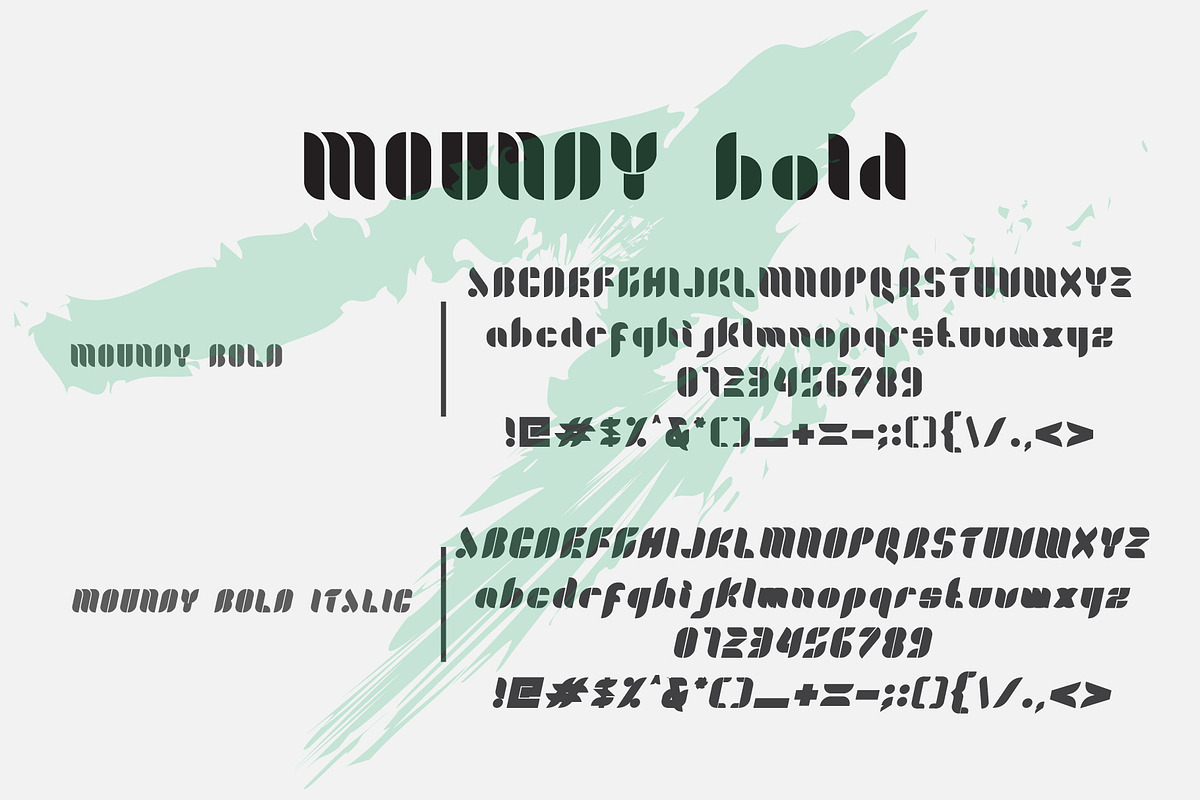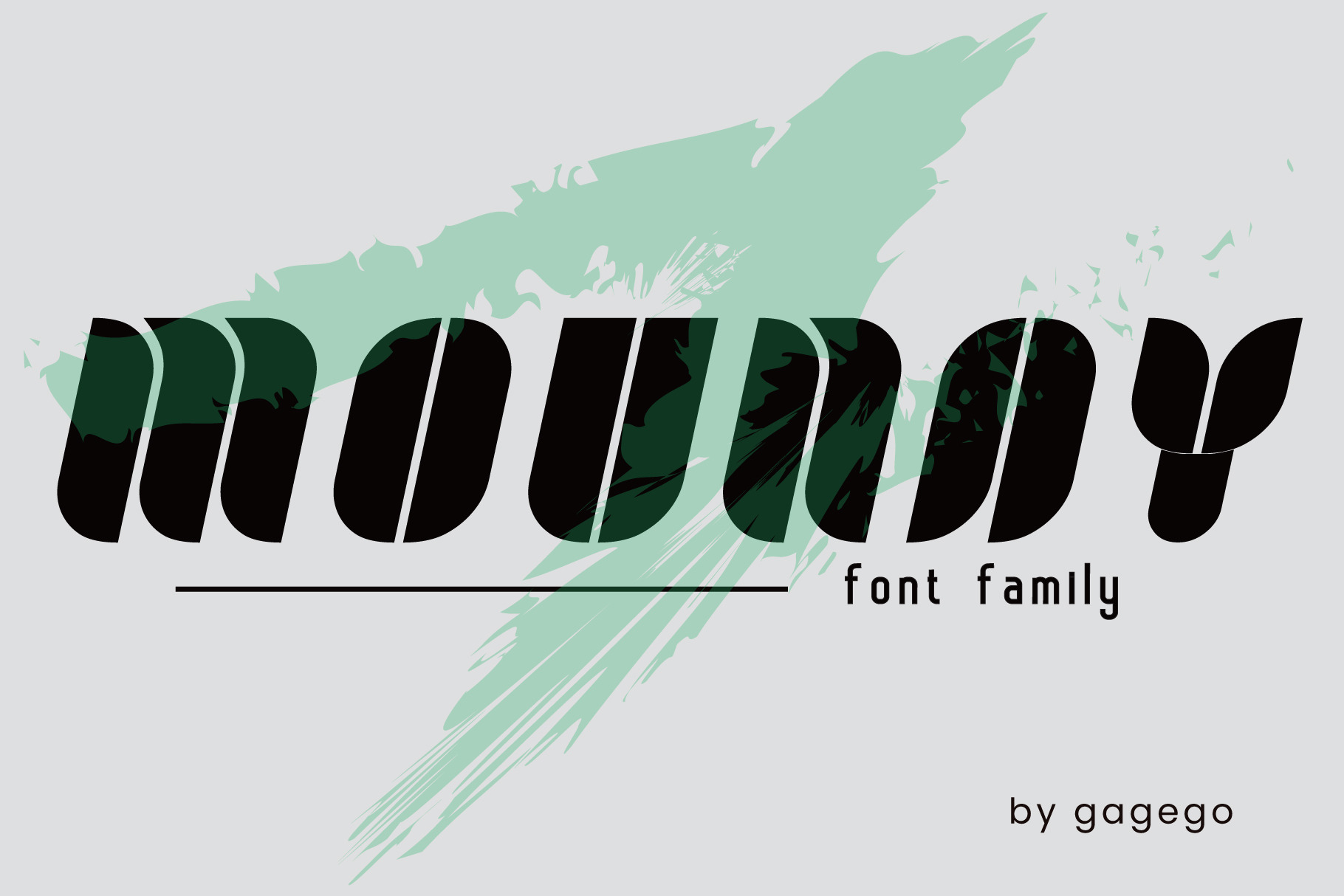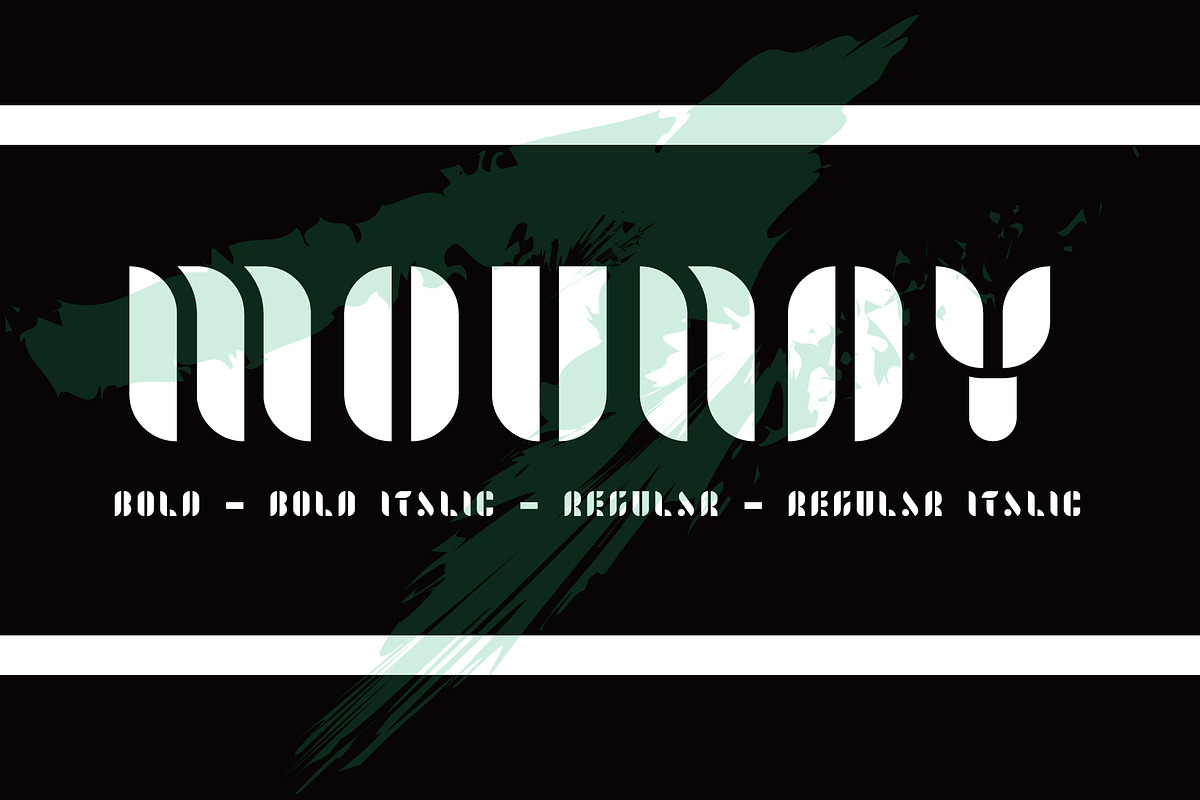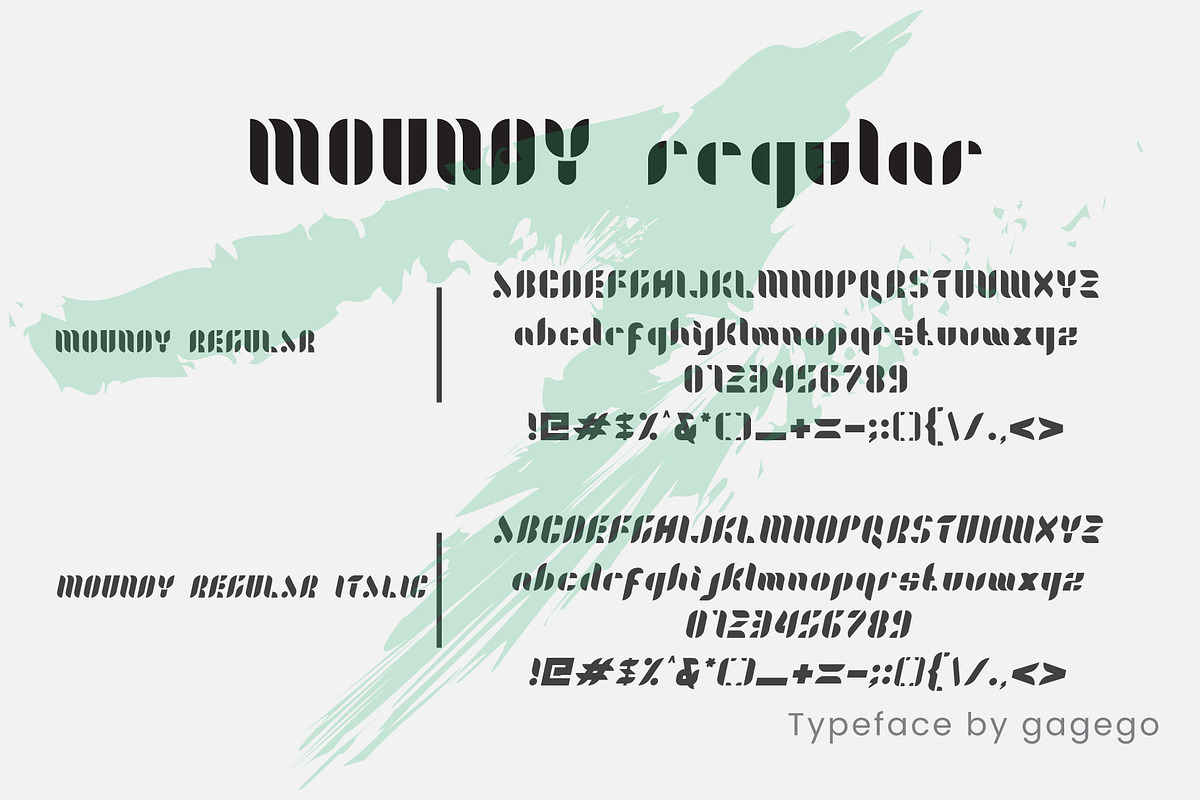
Moundy font
We provide a unique but interesting font that name is MOUNDY FONT. This font only provides uppercase letters, does not provide lowercase letters. This font is suitable for making books or banners and whatever, because this font looks relaxed, happy, happy, and unique. MOUNDY FONT is available in 4 font types
1 MOUNDY regular 2 MOUNDY italics 3 MOUNDY bold 4 MOUNDY bold italic